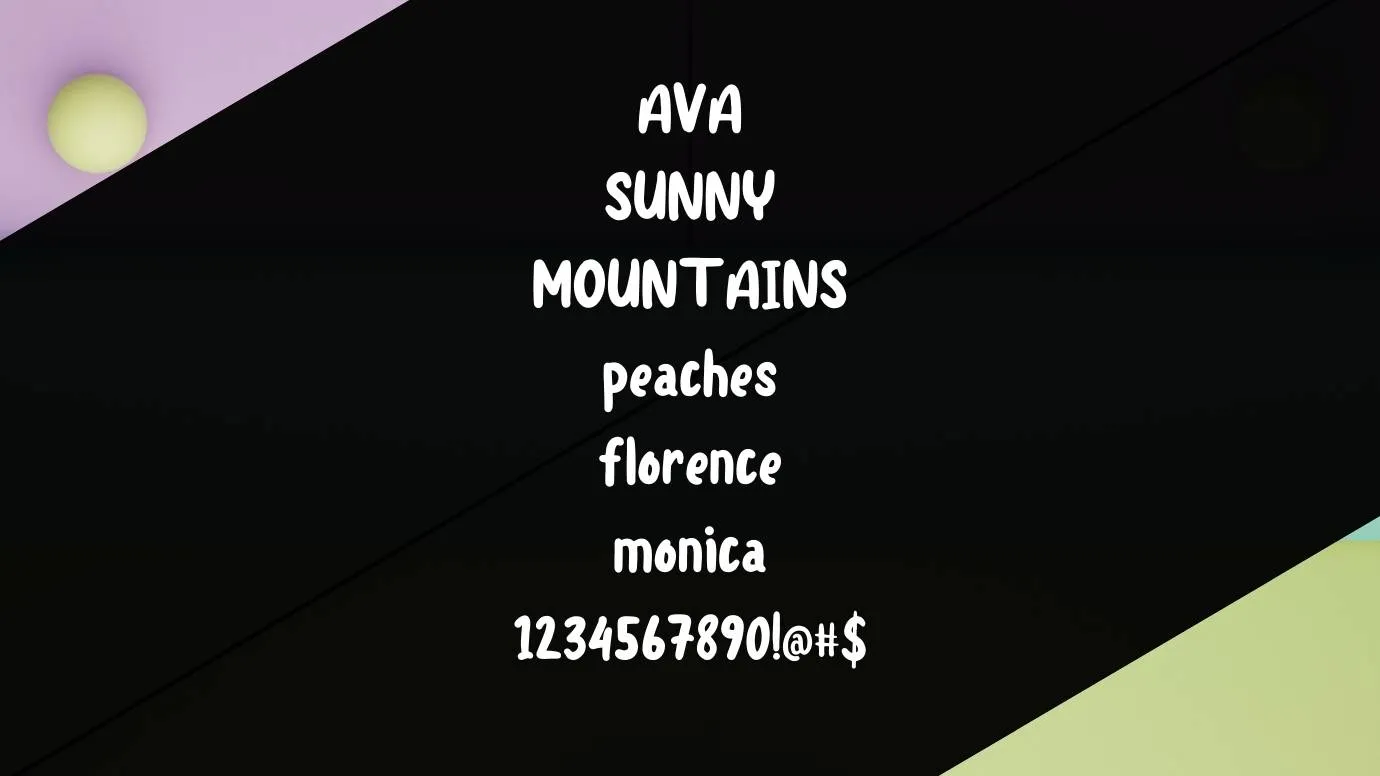
Doogle Font is a typeface that was designed to look like the writing of someone who is not very experienced in writing by hand. The name “Doogle” comes from the fact that it was inspired by the doodles that people often make when they are bored or not paying attention.
The Doogle Font was created by designer Jesse Anderson in 2013. It was inspired by the doodles that people often make when they are bored or not paying attention. The name “Doogle” comes from the fact that it was inspired by the doodles that people often make when they are bored or not paying attention.
The Doogle Font is intended to be used for short paragraphs of text, such as in headlines or in body text. It is not intended to be used for long blocks of text.
The Doogle Font has been used in a variety of contexts, including in marketing materials, on websites, and in print publications. You can also utilize it for making handwritten notes look more attractive.
A similar font of this typeface is rebute font. If you are considering using the Doogle Font for your next project, keep in mind that it is best used in small doses. Too much of it can be overwhelming and difficult to read. When used correctly, however, the Doogle Font can add a touch of personality to your work.
Creator of Doogle Font
It was created by designer Jesse Anderson in 2013. It was inspired by the doodles that people often make when they are bored or not paying attention.
This single appealing design incorporates several elements such as uppercase and lowercase letters, numerals, punctuation, characters, distinctive symbols, glyphs, and multiple language support.
View of Doogle Font
| Designer | Jesse Anderson |